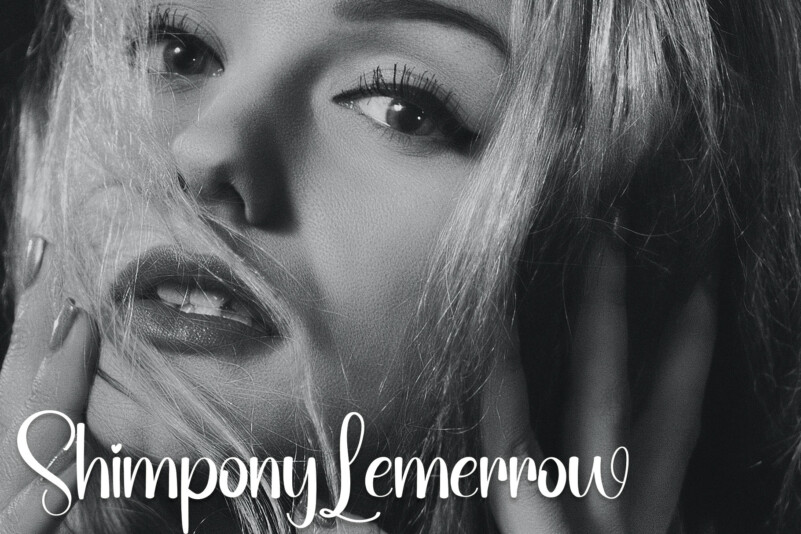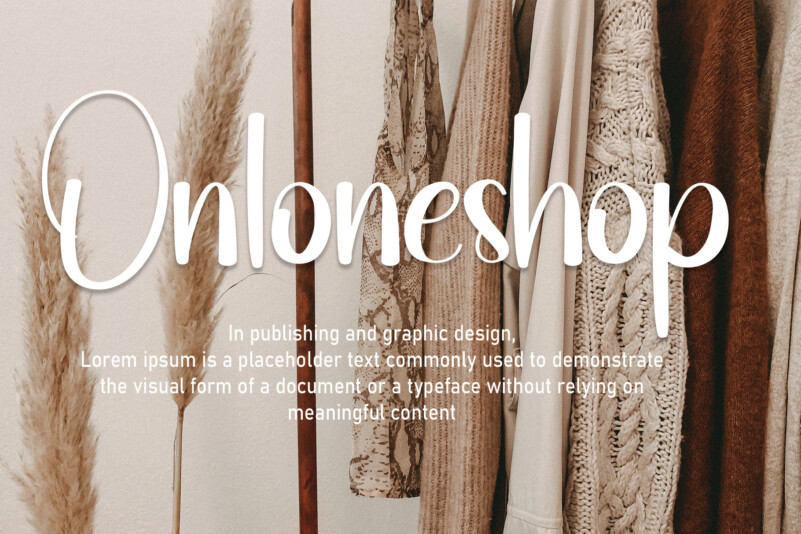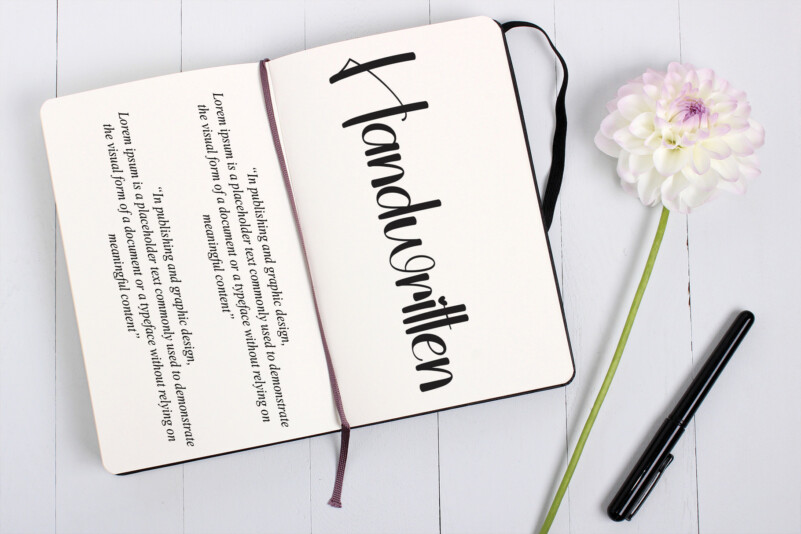
Snowball Script Font
Snowball Script Font is a stylish and nicely rounded handwritten font. Its latest style letters are perfect for wall displays, wedding invitations, social media posts, logos, advertisements, product packaging, product designs, labels, photography, watermarks, invitations, stationery, and any project that requires handwritten characters.